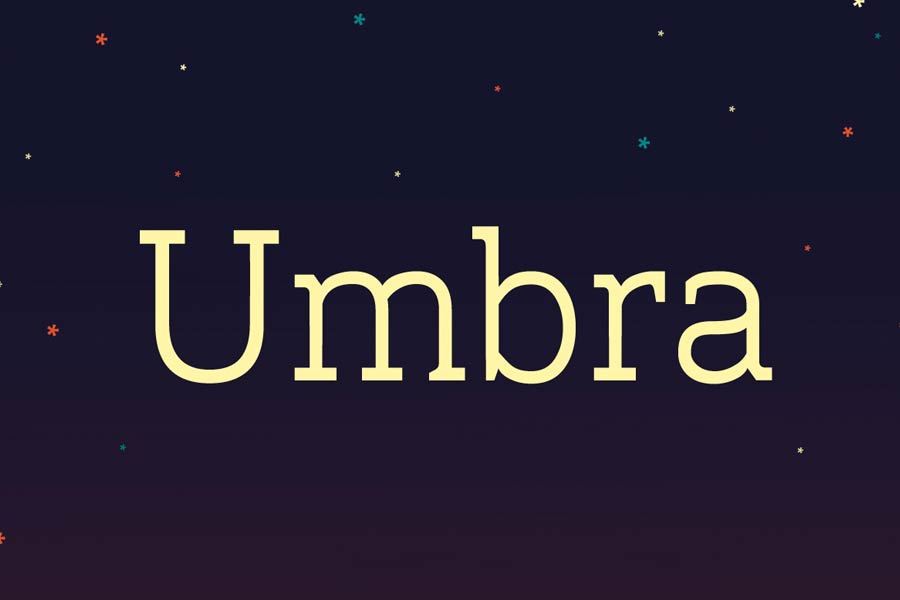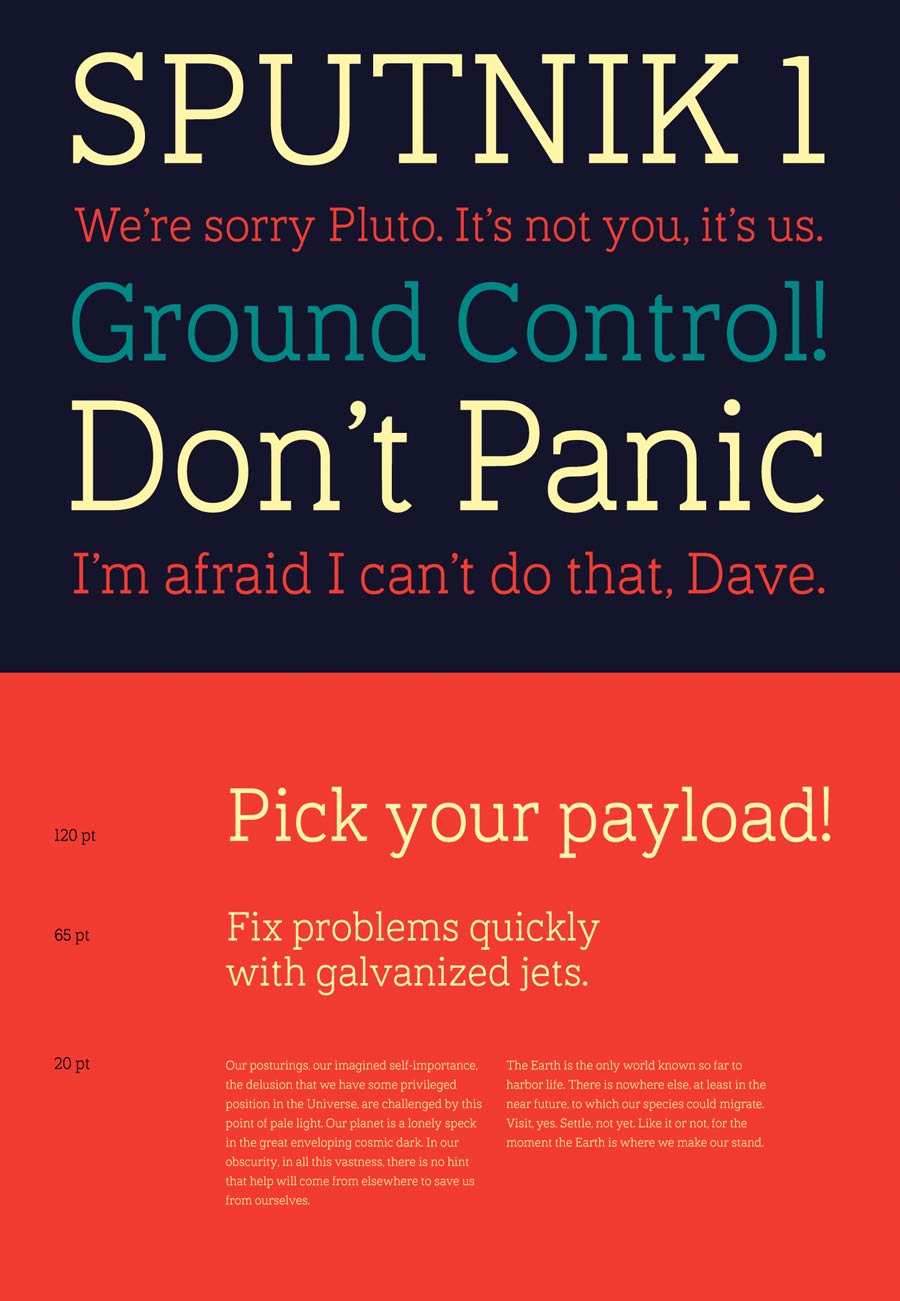
Umbra is a versatile slab serif font that aims to project reliability and personality on type for print and screen. It works perfectly for both headline and body text, thanks to its clear legibility in design. With only one font weight, definitely it’s a setback but I do hope the author will make a font family out of it.
- Designer: Brenan Stretzer
- Category: Slab Serif